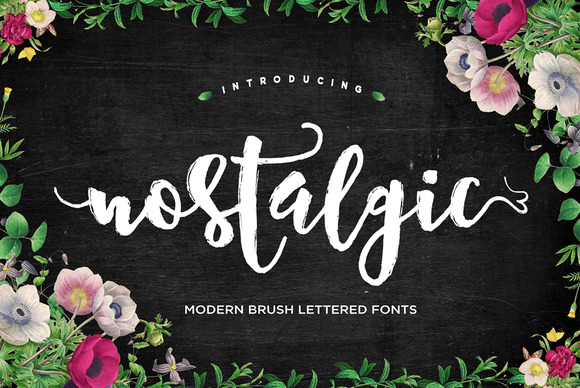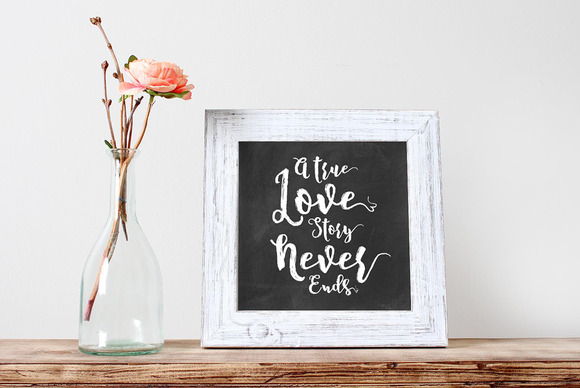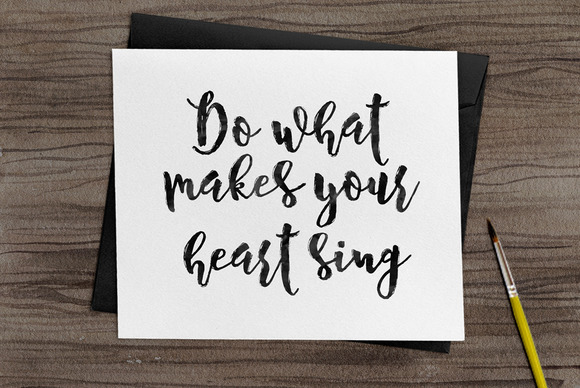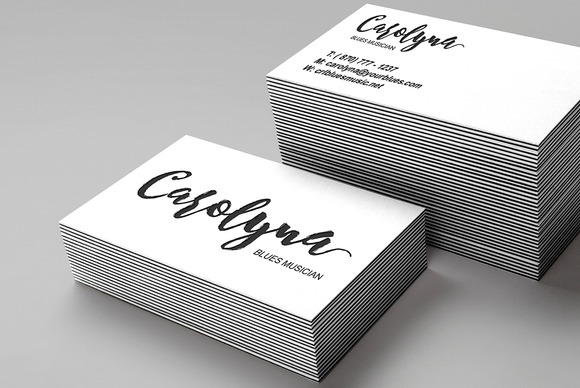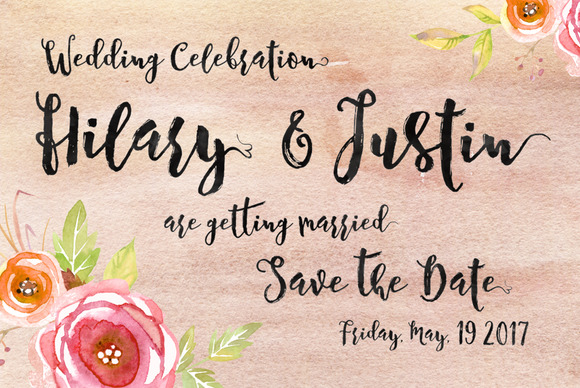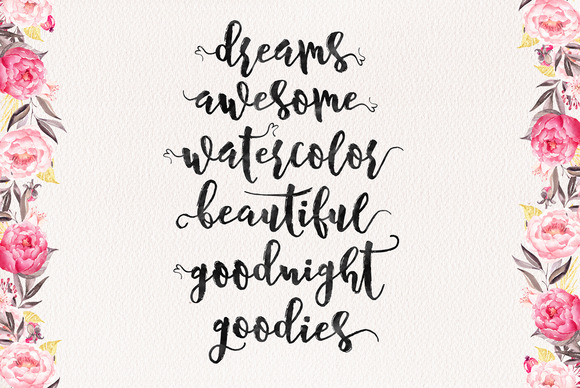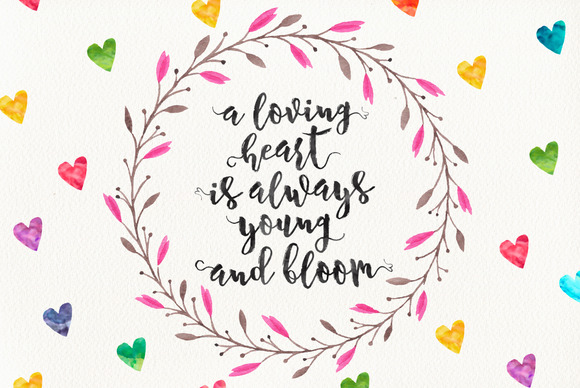
HomeScript FontsNostalgic Script Font Script Fonts Nostalgic Script Font FacebookXPinterestWhatsApp Nostalgic Script Font Poster 2 Nostalgic Script Font Poster 3 Nostalgic Script Font Poster 4 Nostalgic Script Font Poster 5 Nostalgic Script Font Poster 6 Nostalgic Script Font Poster 7 About Nostalgic Script Font Nostalgic is a modern brush font. It has a organic, dynamic and energetic style. DOWNLOAD NOW People also explored Bricky Wall Font Fiesta Font Nextart Extra Light Font Mockine Font Katham Font Wedding Christmas Font Lovely Friends Font Bellissimi Font Katherinn Font 386 0 TagsNostalgic Script Font Previous articleAfinity FontNext articleMichaela Script Font LEAVE A REPLY Cancel reply Comment: Please enter your comment! Name:* Please enter your name here Email:* You have entered an incorrect email address! Please enter your email address here Website: Save my name, email, and website in this browser for the next time I comment. Personal Use Free Rina Personal Use Free Read more about this font Panaroe Personal Use Free Read more about this font Starting Live Personal Use Free Read more about this font Angelika Playful Personal Use Free Read more about this font BLOG To increase your work productivity, choose the most readable fonts. In today's fast-paced work environment, where digital communication and information consumption are integral to our daily routines, the choice of fonts can significantly impact... Free vs Paid Fonts: Why Investing in Premium Fonts Is Worth It How to Install and Use Fonts on Windows, macOS, and Web Projects Transform Your Website: Elevate Your Typography with 7 Best Web Font Generators